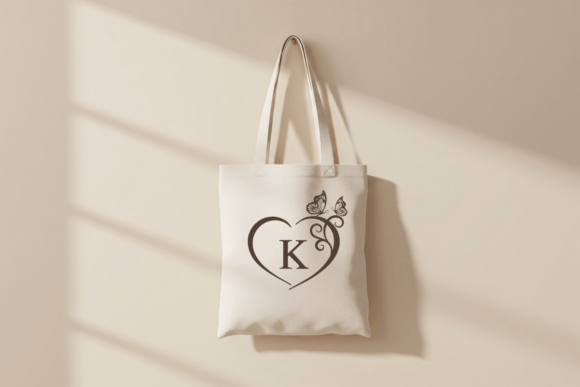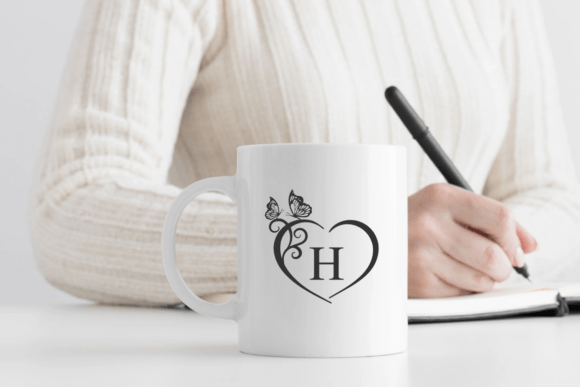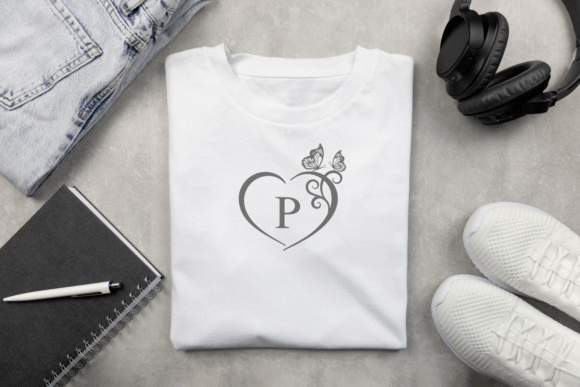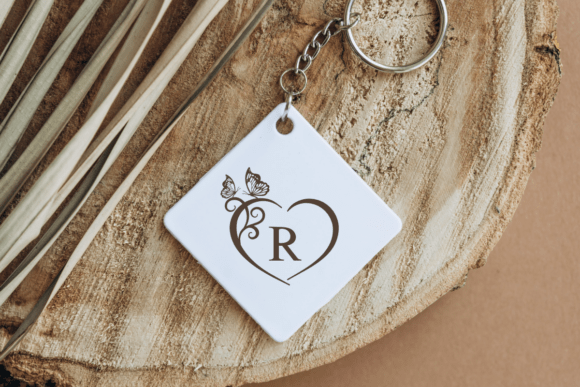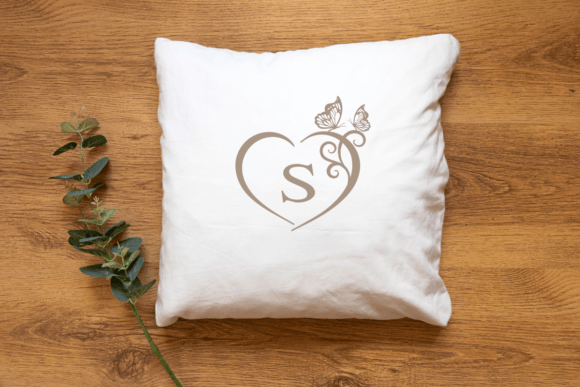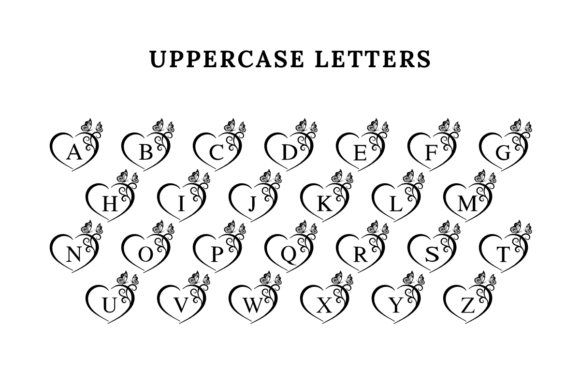
The Butterfly Heart Monogram Font: A Timeless Elegance for Your Creative Projects
Have you ever been in the middle of working on a project, and suddenly, you’re stuck on finding the perfect font? I recall a particularly frustrating experience while designing a wedding invitation for a client. The theme was elegant and romantic, but no matter how hard I searched, I couldn’t find a font that captured the essence of what I envisioned. That’s when I stumbled upon the Butterfly Heart Monogram Font, and it completely transformed my design.
A First Impression: Elegance and Romance Entwined
The Butterfly Heart Monogram Font is a decorative monogram font that beautifully blends elegance and romance. Featuring heart-shaped frames adorned with delicate butterfly accents, each letter is crafted with precision to deliver a timeless and graceful aesthetic. This font is perfect for wedding invitations, luxury branding, personalized stationery, and elegant logo designs, bringing a sophisticated, handcrafted touch to any project.
- ✨ Elegant Design: The heart-shaped frames and butterfly accents add a touch of romance and whimsy to any project.
- ✅ Versatility: Its refined curves and balanced symmetry make it suitable for both modern and classic themes.
- 💫 Attention to Detail: Each letter is crafted with precision, ensuring a high level of detail and artistry.
While the Butterfly Heart Monogram Font is exceptional, there are a few minor considerations:
- ⚠️ Glyph Overload: With so many beautiful glyphs and alternates, it can be overwhelming to navigate, especially for beginners.
- 🤔 Pairing with Other Fonts: Due to its decorative nature, it may require careful pairing with other fonts to maintain balance and harmony in your design.
The Designer Inspiration Behind the Font
The Butterfly Heart Monogram Font was inspired by the delicate beauty of butterflies and the timeless elegance of heart-shaped motifs. The designer aimed to create a font that would capture the essence of romance and whimsy, perfect for special occasions and luxury branding. The result is a beautiful, handcrafted font that brings a touch of artistry to any project.
Q: What type of projects is the Butterfly Heart Monogram Font best suited for?
A: The Butterfly Heart Monogram Font is perfect for wedding invitations, luxury branding, personalized stationery, and elegant logo designs.